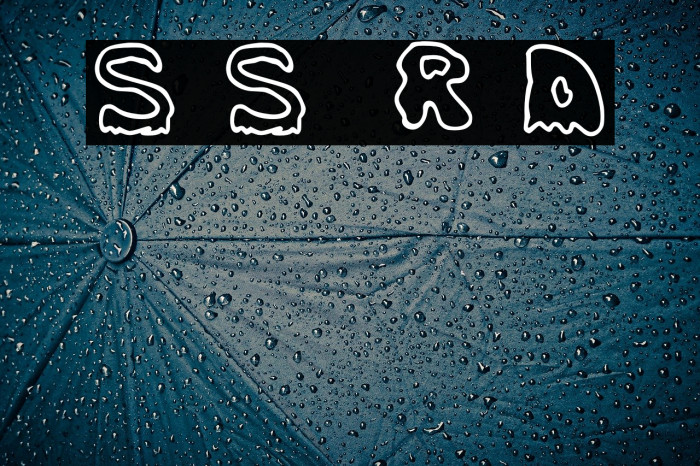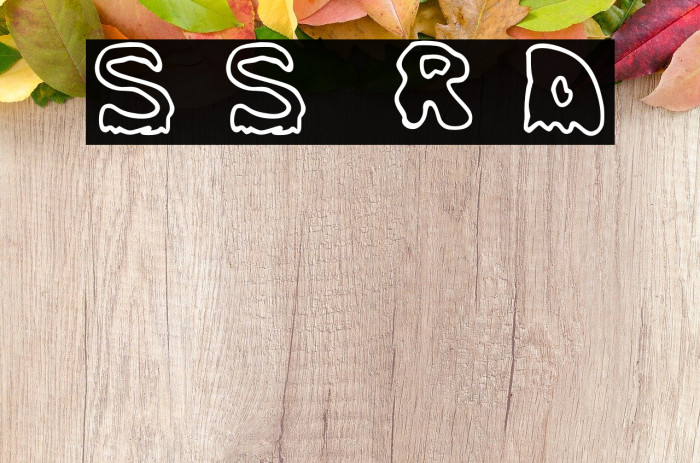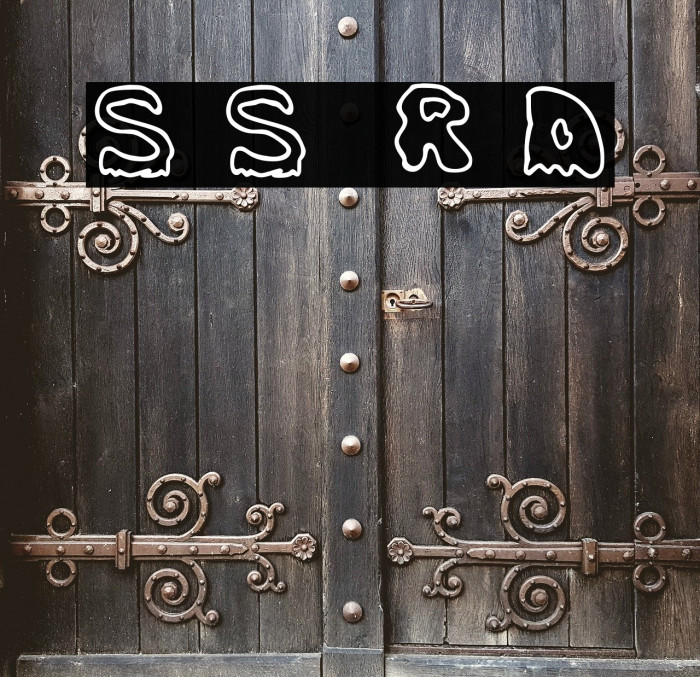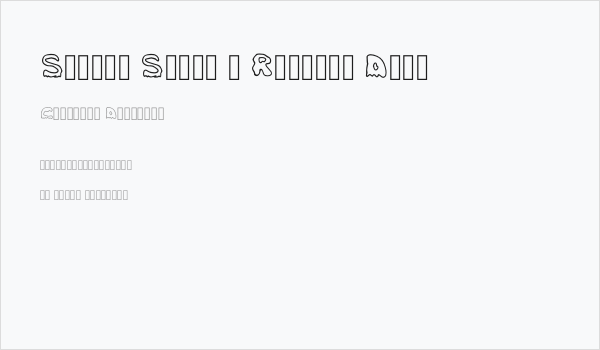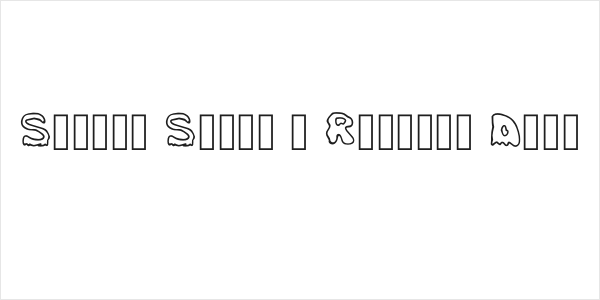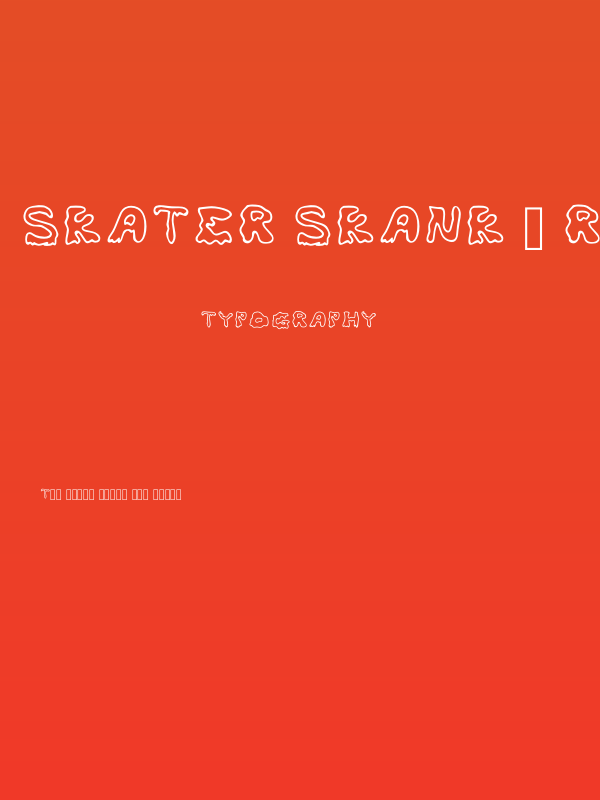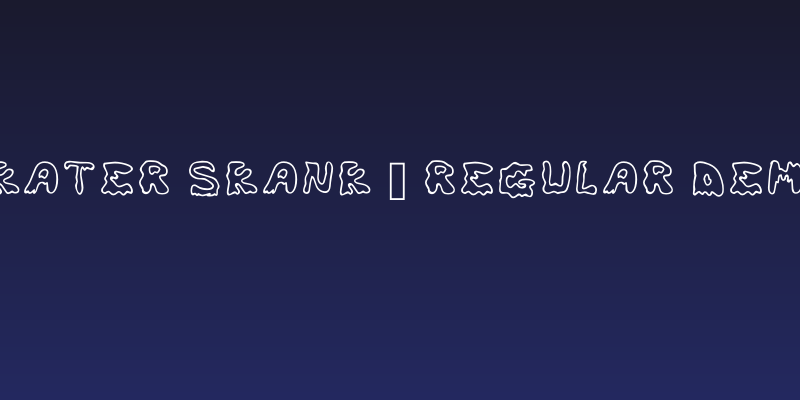
Skater Skank - Regular Demo Font
Skater Skank - Regular Demo Description
This font features a playful and edgy design, with each letter appearing as if it is melting or dripping. The uppercase letters have a bold, irregular outline that gives them a dynamic and fluid appearance. The style is reminiscent of graffiti or street art, making it ideal for projects that require a bold and unconventional look. The characters are well-defined, with a unique blend of sharp edges and smooth curves that create a sense of movement and energy. This font is perfect for creative projects that aim to capture attention and convey a sense of rebellion or nonconformity.
| Overall Style | Modern, Edgy |
| Proposed Projects | Ideal for street art designs, edgy posters, album covers, and skateboarding event flyers. |